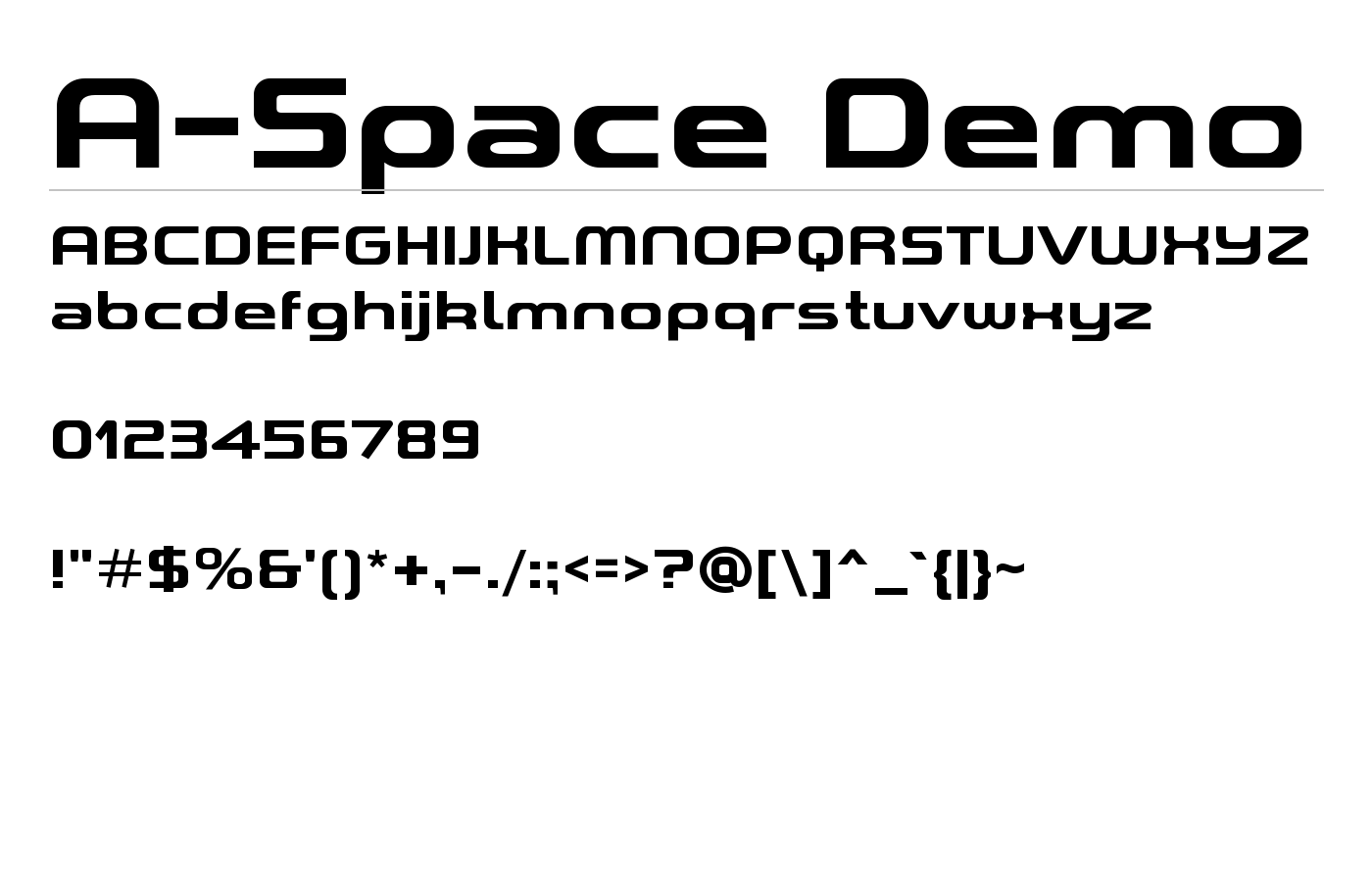
A-Space Demo is a bold, modern sans serif font with a futuristic and geometric style, featuring clean lines and a strong, almost tech-inspired personality. Its large x-height and rounded corners create a friendly yet sturdy feel, making it an excellent choice for branding, headlines, and digital interfaces where a contemporary and approachable look is desired. This font works well for technology companies, sci-fi projects, and modern editorial designs that aim to convey innovation and clarity.
A-Space Demo Font
About A-Space Demo Font